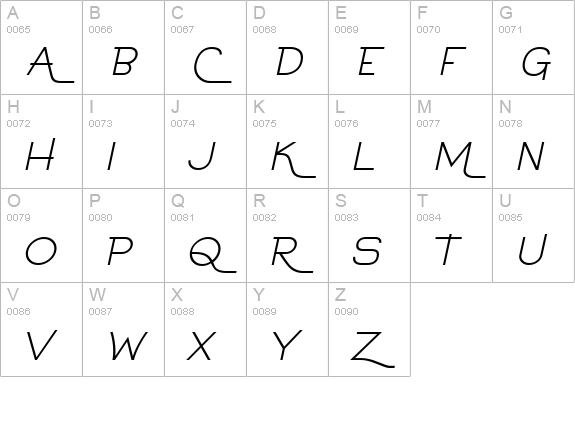
Calamity Teen BTN Oblique is a distinctive, italic variant in the Calamity typeface family \xE2\x80\x94 well suited to design and typography projects.
Calamity Teen BTN Oblique font is a stylish and modern typeface that exudes a sense of youthful energy and edginess. Its slanted design adds a dynamic and rebellious touch to any project, making it perfect for capturing the spirit of teenage rebellion and adventure. The unique letterforms and intricate details of this font make it stand out from the crowd and ensure that your designs make a bold statement. Best of all, Calamity Teen BTN Oblique font is available for free download at FontsMarket.com, allowing you to easily access this fantastic font and use it in your creative projects without any cost. Whether you're working on a poster, website, or any other design project, this font will add a touch of excitement and personality to your work. Download Calamity Teen BTN Oblique font today and let your creativity run wild!